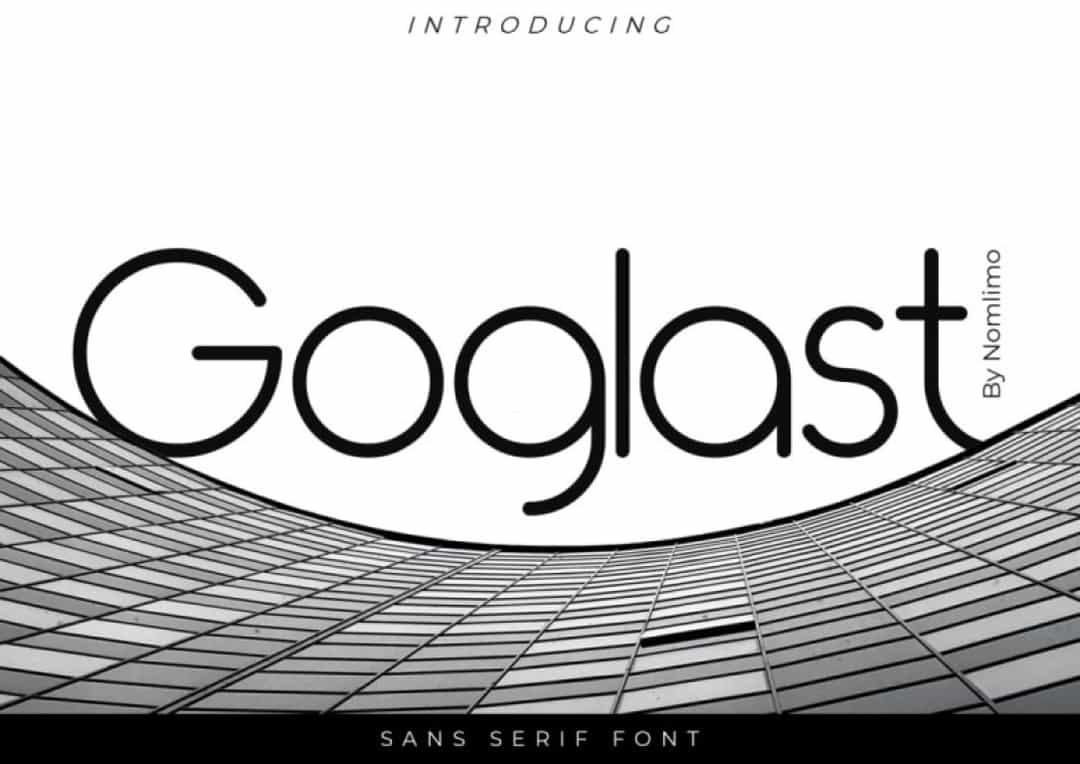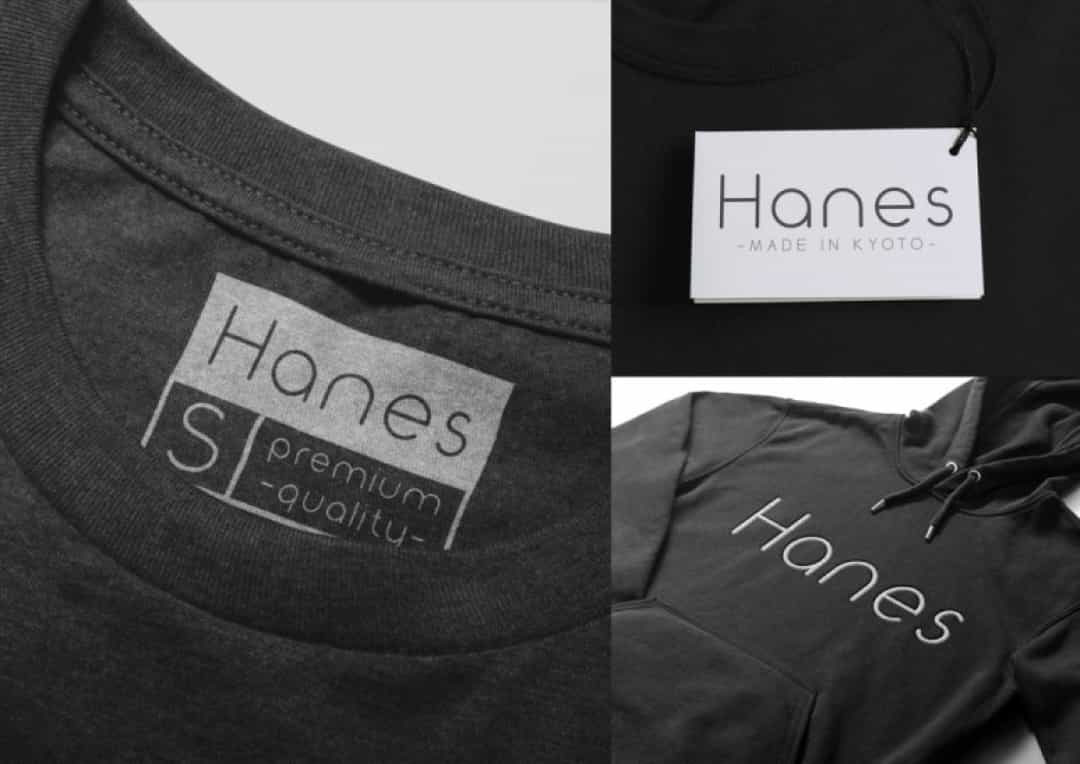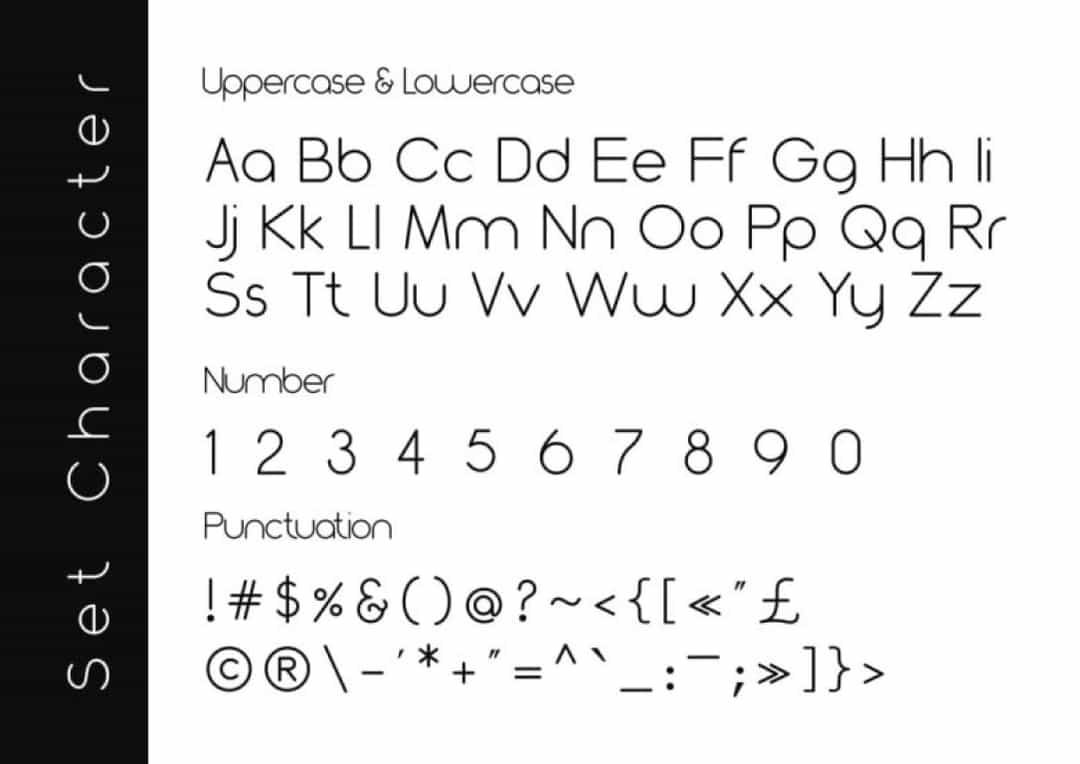
Goglast, our modern display sans serif font, effortlessly marries authenticity with an easygoing vibe. Perfect for branding logo design projects such as writing posters packaging magazines logo design bags shopping t-shirts book covers photography special events Goglast adds modernity as well as relaxing elegance into any work environment – make the most of its charming character today.